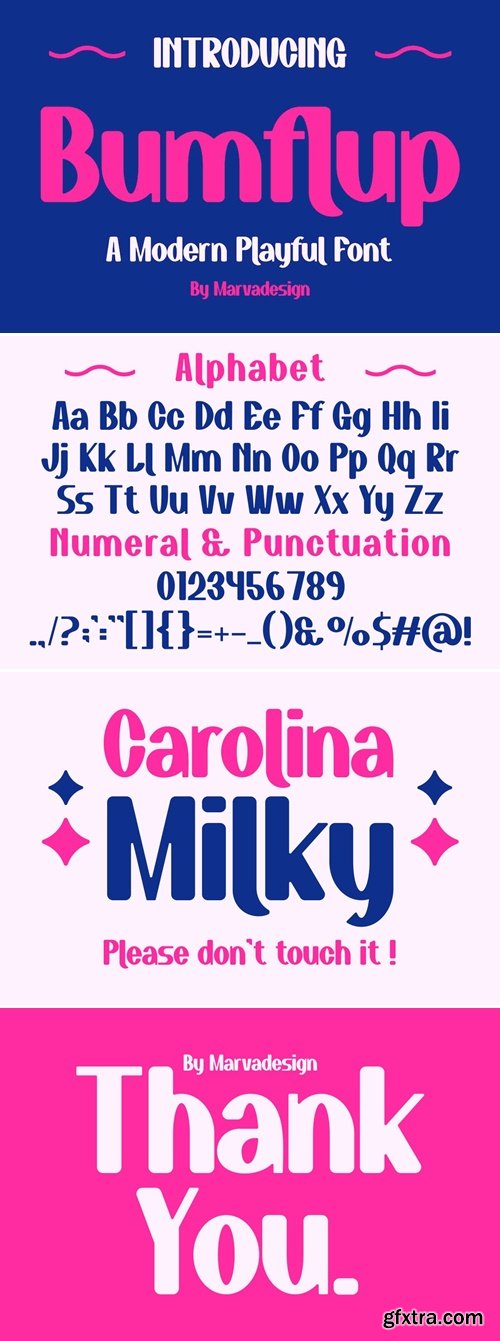
Bumflup - A Modern Playful Font
Introducing our new product Bumflup Font - Modern Font Bumflup Font** - Modern Font is a bold and authentic display font. The font is suitable for any branding project like logo, t-shirt printing, Product and many more. outstanding in a wide range of contexts.